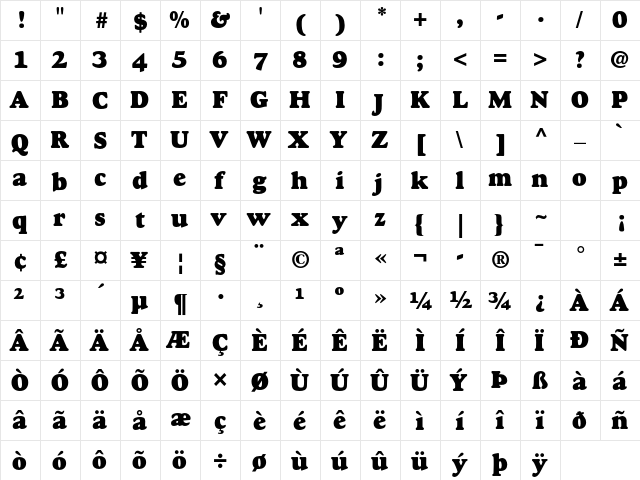
Goudy Heavyface Std Regular
| Designer | Frederic W. Goudy, Morris Fuller Benton |
Design Context for Goudy Heavyface Std Typeface
Goudy Heavyface Std takes a measured approach to typography — its balanced proportions and neutral character make it a reliable workhorse for both digital and print work.